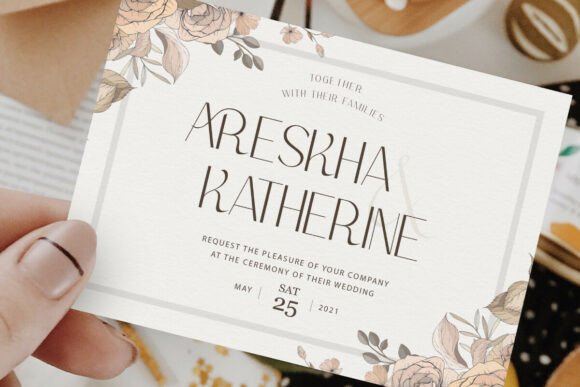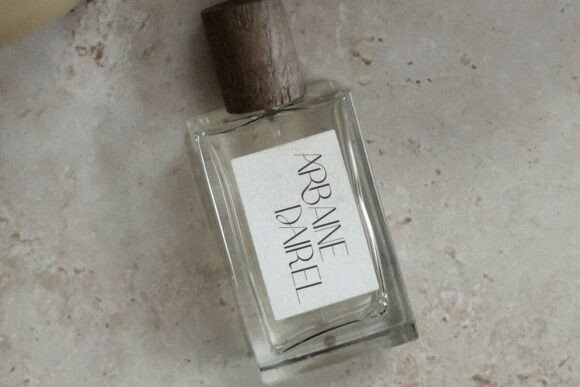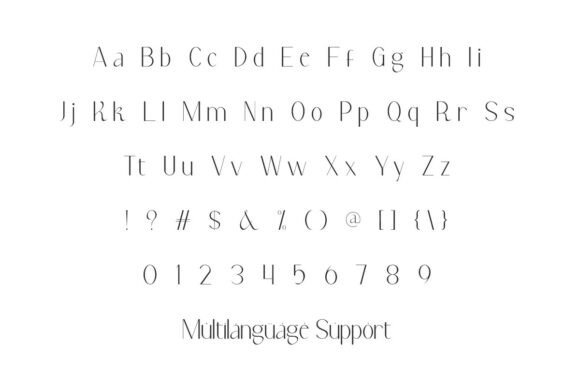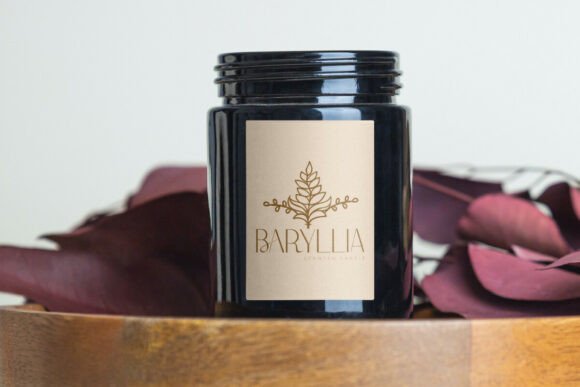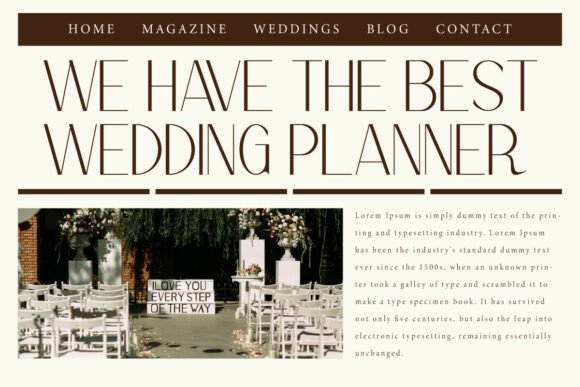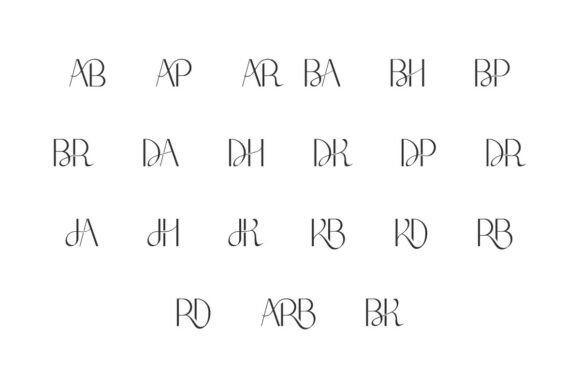
Introducing Arbaine Dairel Font: Elevate Your Designs with Elegance
In the world of typography, fonts play a crucial role in conveying the tone and aesthetic of a design. For designers and crafters seeking to add a touch of sophistication and refinement to their projects, Arbaine Dairel Font is an exceptional choice. This elegant sans-serif font boasts beautifully connected letters, creating a classy look that is both modern and timeless.
Key Features of Arbaine Dairel Font
- Elegant Sans-Serif Design: Arbaine Dairel Font features a sleek sans-serif design, making it perfect for projects that require a clean and contemporary look.
- Beautifully Connected Letters: The font’s letters are beautifully connected, creating a flowing and harmonious visual effect that adds a touch of elegance to any design.
- Perfect Curves and Modern Aesthetics: With its perfectly crafted curves and modern aesthetic appeal, Arbaine Dairel Font is ideal for designers looking to create stunning visual content.
Arbaine Dairel Font is incredibly versatile, making it suitable for a wide range of projects. Whether you’re working on:
- Advertisements
- Custom designs
- Invitations
- Labels
- Layout designs
- Magazine covers
- Quotes
- Signs
- Stationery
- Template designs
- Website pages
and more, this font is sure to elevate your design and leave a lasting impression.
Ideal for Various Purposes
Arbaine Dairel Font is not just limited to general design projects. Its versatility extends to various industries and purposes, including:
- Accessories: Add a touch of elegance to your accessory branding or marketing materials.
- Advertising: Create stunning ad campaigns with a sophisticated and modern edge.
- Beauty Content: Elevate your beauty brand’s visual identity with a refined and classy font.
- Cafe: Give your cafe’s branding a modern and sleek look.
- Clothing Brand: Perfect for fashion brands seeking a sophisticated and elegant typography.
- Event or Wedding Organizer: Create beautiful and memorable event branding with Arbaine Dairel Font.
- Fashion: Ideal for fashion magazines, blogs, or brand identities.
- Flower Shop: Add a touch of elegance to your flower shop’s branding and marketing materials.
- Furniture: Elevate your furniture brand’s visual identity with a modern and sophisticated font.
- Photography: Perfect for photography portfolios, blogs, or social media content.
Why Choose Arbaine Dairel Font?
With so many fonts available, why choose Arbaine Dairel Font? Here are just a few reasons:
- Unique and Elegant Design: Stand out from the crowd with a truly unique and elegant font.
- Highly Versatile: Suitable for a wide range of projects and industries.
- Easy to Read: The font’s clean and modern design makes it easy to read, even at smaller sizes.
- Time-Saving: Save time and effort with a font that can be used across multiple projects.
Arbaine Dairel Font is an exceptional choice for designers and crafters seeking to add a touch of elegance and sophistication to their projects. With its beautifully connected letters, perfect curves, and modern aesthetics, this font is sure to elevate your designs and leave a lasting impression. Whether you’re working on a small project or a large campaign, Arbaine Dairel Font is the perfect choice.